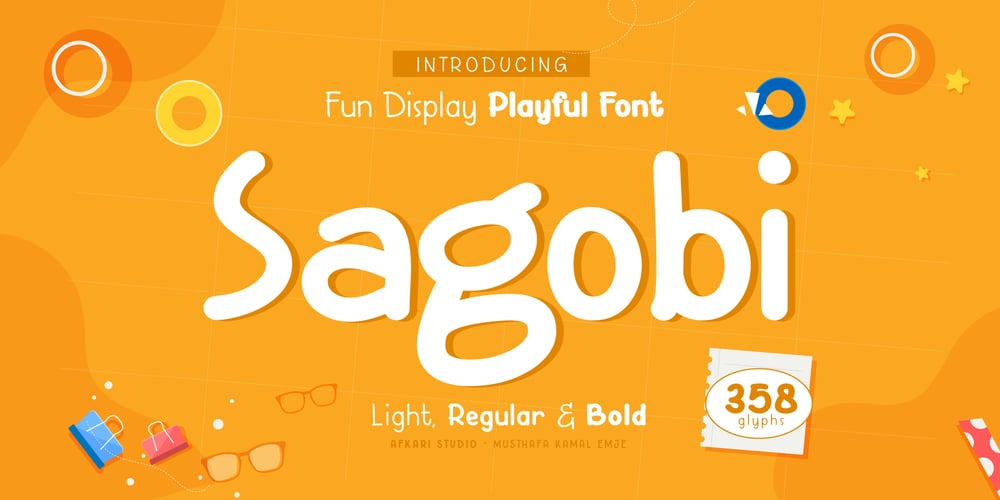
Sagobi Font Family was designed by Musthafa Kamal Emje and published by Afkari Studio. Sagobi contains 3 styles and family package options. Sagobi – Fun Display Playful FontSagobi is a fun display playful font create with natural handwritten type with 3 alternates weights; light, regular and bold. Sagobi Playful Display Font is suitable for greeting cards, invitations, posters, baby clothing, books cover, quotes, logos, presentations, headline etc. Sagobi will turn any creative idea into a true piece of art and ready to make your design looks great and fun!Features;- 3 Weights; Light, Regular and Bold- Standart and special ligatures- Uppercase, Lowercase, Number, and Punctuation- Works on PC & Mac- Simple installations- Accessible in Adobe Illustrator, Adobe Photoshop, Adobe InDesign, even work on Microsoft Word- Fully accessible without additional design software.- Mültîlíñgúãl Sùppört for; ä ö ü Ä Ö Ü ß ¿ ¡Hope you enjoy our font and this font is useful font for your projects!